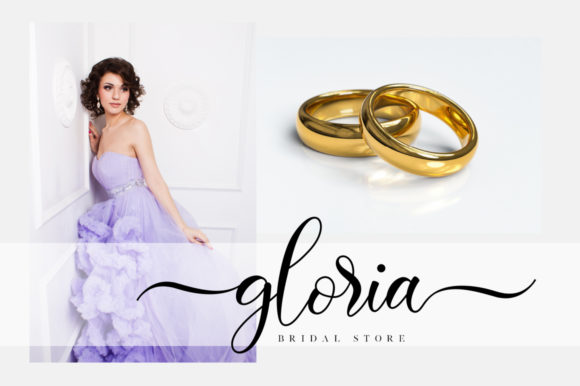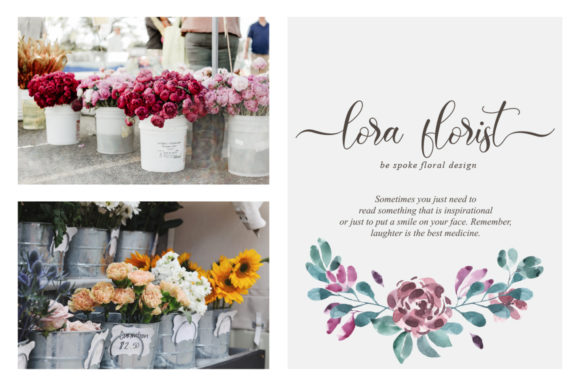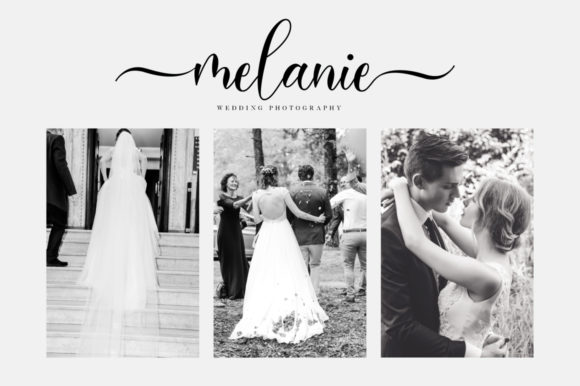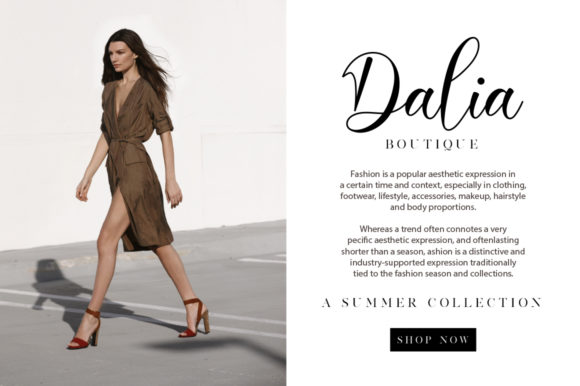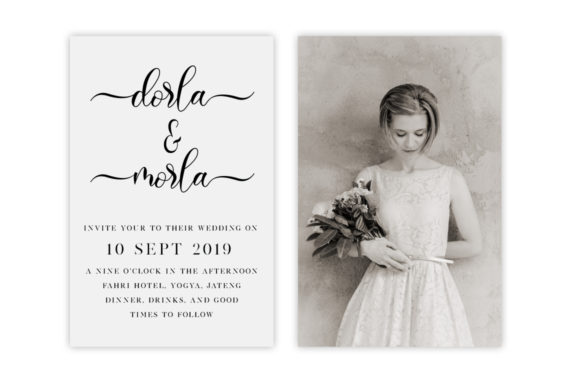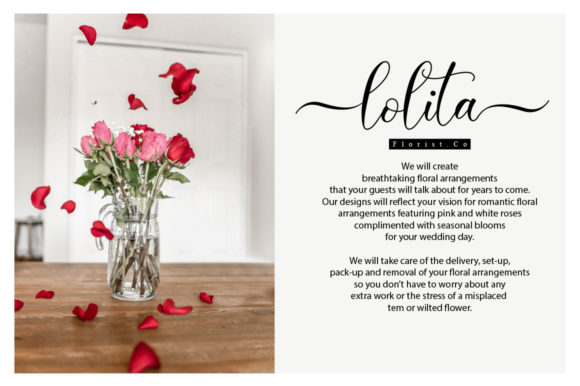
Discover the Elegance of Clara Font: Elevate Your Crafting Projects with a Touch of Romance
Are you a designer or crafter looking for a font that exudes class, elegance, and modernity? Look no further than Clara Font. This stunning script font is designed to add a romantic touch to any crafting project, making it perfect for those who want to create something truly special. In this article, we’ll dive into the world of Clara Font, exploring its features, benefits, and uses, as well as provide tips on how to make the most of this beautiful font.
What is Clara Font?
Clara Font is a beautiful script font that is characterized by its elegant and modern design. With its flowing lines and delicate curves, Clara Font is the perfect choice for anyone looking to add a touch of sophistication to their crafting projects. Whether you’re working on a wedding invitation, a scrapbooking project, or a DIY craft, Clara Font is sure to impress.
Features of Clara Font
So, what makes Clara Font so special? Here are just a few of its key features:
- Elegant and Modern Design: Clara Font boasts a sleek and contemporary design that is sure to turn heads.
- Romantic Touch: With its flowing lines and delicate curves, Clara Font adds a touch of romance to any crafting project.
- Classy and Sophisticated: Clara Font is the perfect choice for anyone looking to create a high-end crafting project that exudes class and sophistication.
- Versatile: Clara Font can be used for a wide range of crafting projects, from wedding invitations to scrapbooking and DIY crafts.
Benefits of Using Clara Font
So, why should you choose Clara Font for your crafting projects? Here are just a few benefits of using this beautiful font:
- Adds a Personal Touch: Clara Font allows you to add a personal touch to your crafting projects, making them truly unique and special.
- Enhances Visual Appeal: With its elegant and modern design, Clara Font is sure to enhance the visual appeal of any crafting project.
- Increases Professionalism: Clara Font is perfect for crafters who want to create professional-looking projects that rival those of professional designers.
- Easy to Use: Clara Font is easy to use and can be easily integrated into a wide range of crafting projects.
Uses of Clara Font
So, what can you use Clara Font for? The possibilities are endless! Here are just a few ideas to get you started:
- Wedding Invitations: Clara Font is perfect for creating beautiful and elegant wedding invitations that set the tone for the big day.
- Scrapbooking: Clara Font can be used to add a touch of elegance and sophistication to scrapbooking projects.
- DIY Crafts: Clara Font is perfect for DIY crafters who want to add a personal touch to their projects.
- Stationery: Clara Font can be used to create beautiful and elegant stationery that is perfect for special occasions.
Tips for Using Clara Font
Here are a few tips for using Clara Font in your crafting projects:
- Pair with Other Fonts: Clara Font can be paired with other fonts to create a unique and interesting look.
- Use for Headings and Titles: Clara Font is perfect for use in headings and titles, where its elegant and modern design can really shine.
- Experiment with Colors: Clara Font can be used with a wide range of colors to create a unique and eye-catching look.
- Don’t be Afraid to Get Creative: Clara Font is a versatile font that can be used in a wide range of crafting projects, so don’t be afraid to get creative and try new things!
In conclusion, Clara Font is a beautiful script font that is perfect for designers and crafters who want to add a touch of elegance and sophistication to their projects. With its elegant and modern design, Clara Font is sure to impress, and its versatility makes it perfect for use in a wide range of crafting projects. So why not give Clara Font a try and see the difference it can make in your crafting projects?